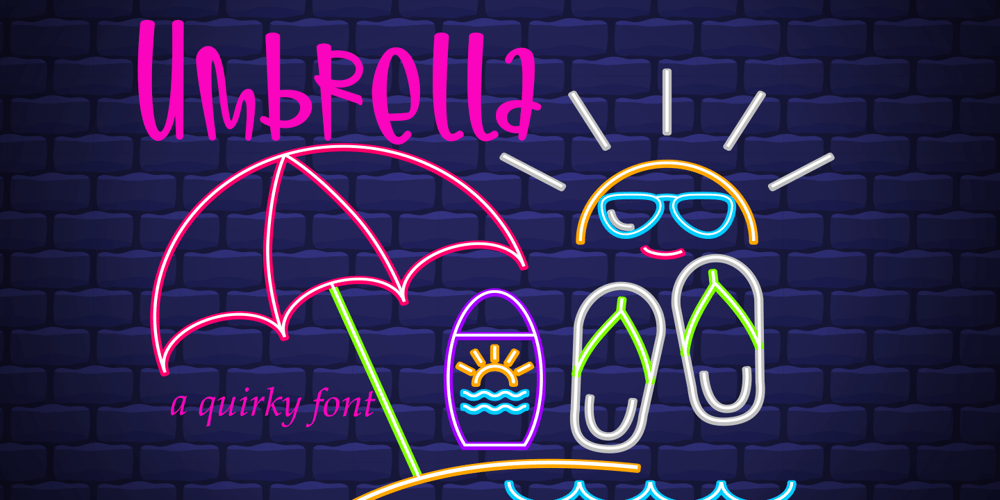
Umbrella
Umbrella font
Umbrella Font Family was designed by Arief Tri Sulistiyono and published by Supersemarletter. Umbrella contains 1 styles and family package options. Umbrella is a cute and quirky handwritten font. It will add an incredibly joyful touch to your designs. Add this beautiful font to each of your creative ideas and notice how it makes them stand out! Honestly it works perfectly for headlines, logos, posters, packaging, T-shirts and much more.Font Features :• Regular version• Character set A-Z in uppercase and lowercase• Numerals & Punctuation• Accented Characters• Multiple Languages SupportedRecommended to use in Adobe Illustrator or Adobe Photoshop with opentype feature.If you have questions, just send me a message and I’m glad to help.